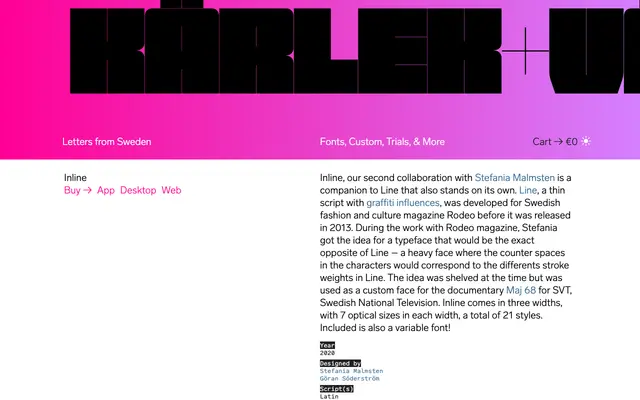
Inline
Letters from Sweden · Stefania Malmsten, Göran Söderström · 2020
Inline specimen from Letters from Sweden
A heavy inline display face by Stefania Malmsten and Göran Söderström, built as a structural counterpart to their script typeface Line, available in three widths and seven optical sizes with a variable font.
Conceived as the typographic inverse of Line, a thin graffiti-influenced script, Inline uses counter spaces that correspond directly to Line's varying stroke weights. First deployed as a custom typeface for the SVT documentary Maj 68, it was released commercially in 2020 with 21 styles across three widths, each offering seven optical sizes. A variable font is included, and the Latin character set covers extended European languages.
A heavy display face with inline counters derived from the stroke weights of companion script Line; the optical sizing system and three widths place it firmly in the display category with a structured, geometric character.